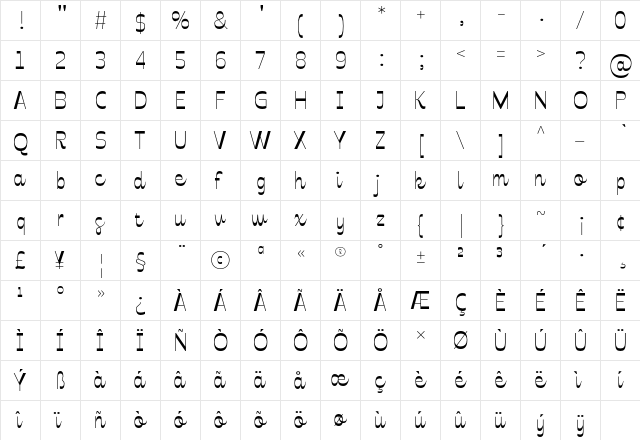
Celestine Regular
| Foundry | Anugrah Pasau |
| Designer | Anugrah Pasau |
Design Context for Celestine Typeface
Celestine takes a measured approach to typography — its balanced proportions and neutral character make it a reliable workhorse for both digital and print work.